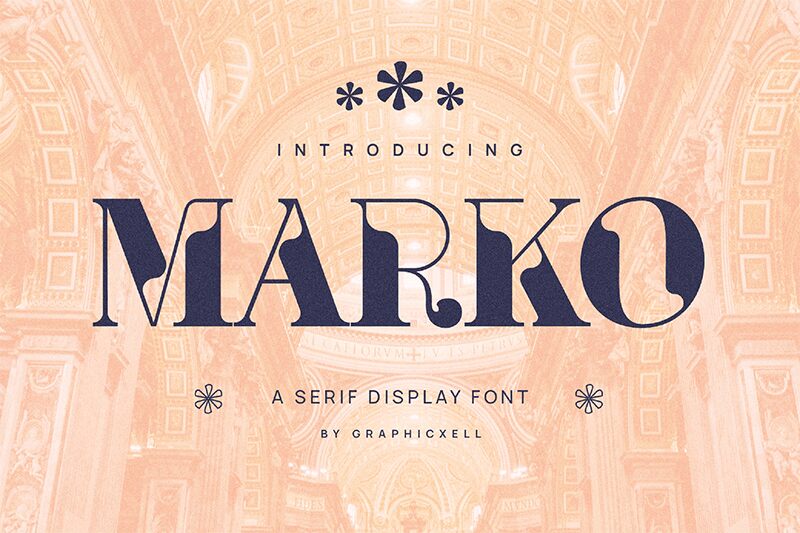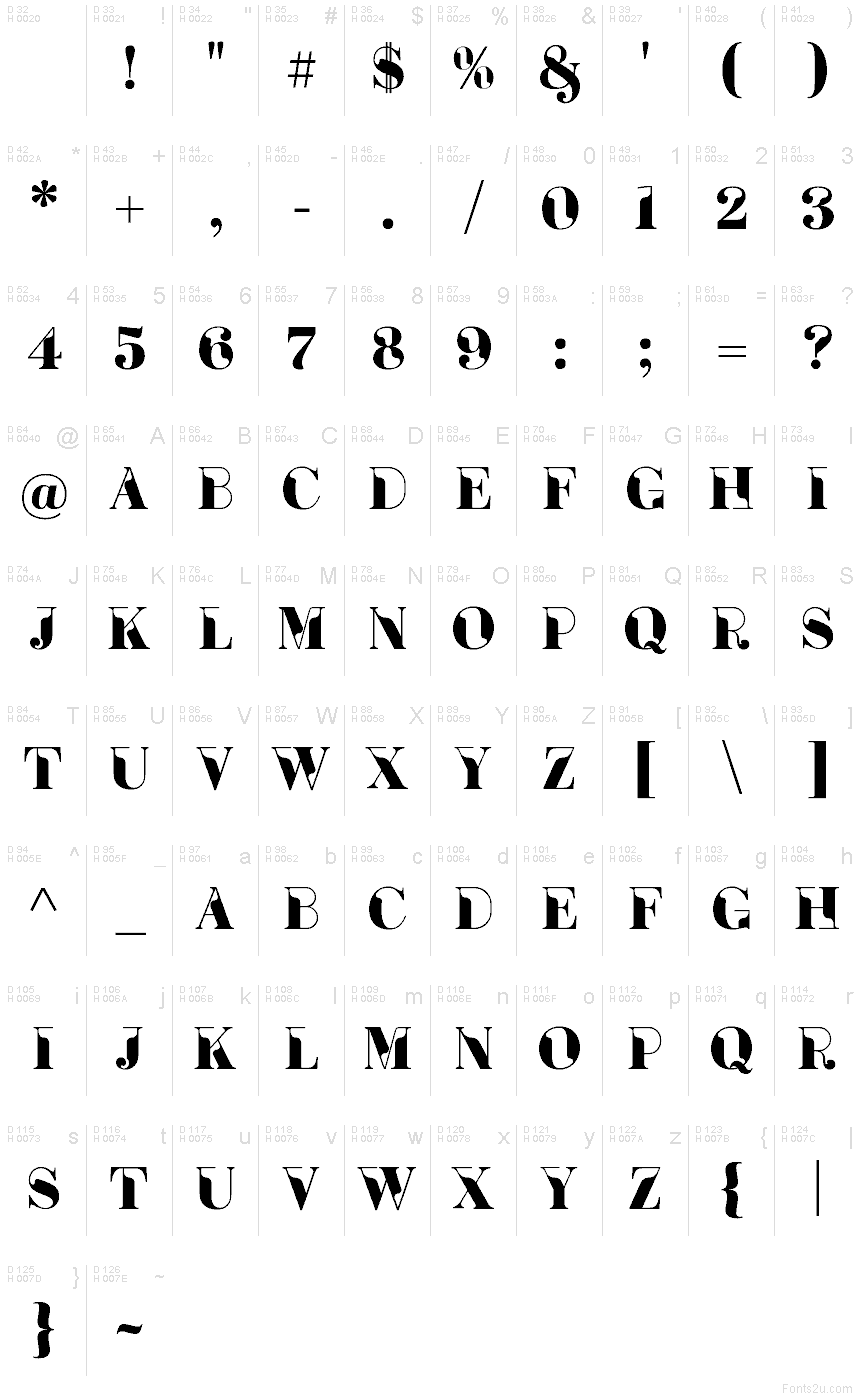
Marko font by Graphicxell is a free retro typeface that turns light and shadow into lettering. Each form looks half-inked, with bold, inky masses sliced by slender, airy strokes that feel almost cut with a scalpel. The result is rhythmic and theatrical-letters seem to wink as they curve, taper, and snap back into solid shapes, giving headlines a cinematic swagger.
Using Marko, you get instant drama for posters, album covers, boutique branding, liquor labels, editorial headlines, and statement packaging. This free font shines at large sizes where its sculpted contrasts can breathe. Pair it with a simple, modern sans to handle body copy and let Marko command the spotlight.